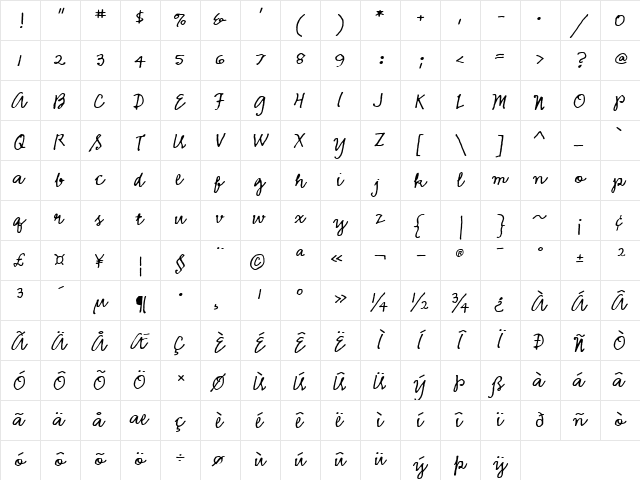
EmmascriptMVB RomanItalic
Design Context for EmmascriptMVB
EmmascriptMVB flows with the natural rhythm of handwritten lettering, making it ideal for designs that call for warmth and personal expression.
Font Pairing: Combine EmmascriptMVB with a simple geometric sans for maximum contrast - the tension between flowing curves and clean structure is a classic typographic pairing.
Pro Tip: Use EmmascriptMVB for short runs of text - names, titles, or taglines. Extended body copy in script faces tires the eye quickly.